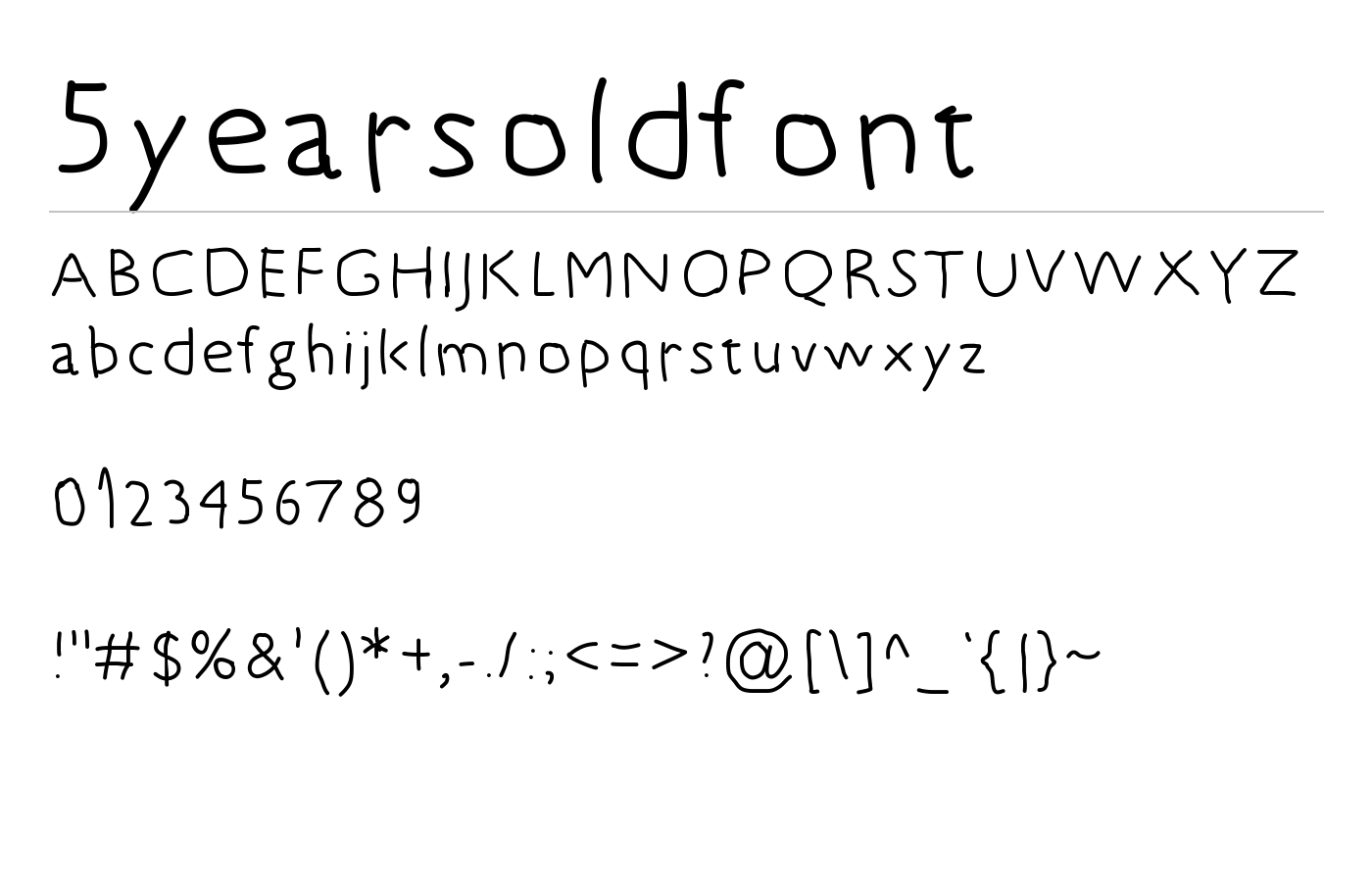
5yearsoldfont is a playful and casual handwritten sans serif font that mimics the simple, imperfect style of childlike writing. Its light weight, uneven strokes, and irregular letterforms create a friendly and approachable feel, making it ideal for informal designs, children’s projects, or creative branding that aims to evoke warmth and innocence. This font works well for headlines, invitations, and any design needing a human touch with a youthful, spontaneous vibe.
5yearsoldfont